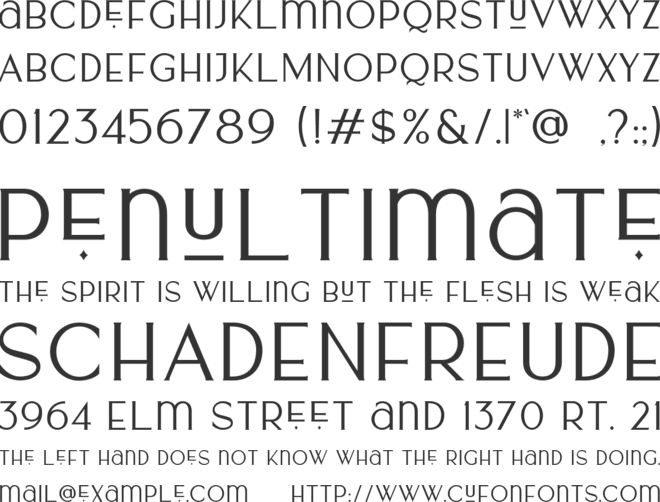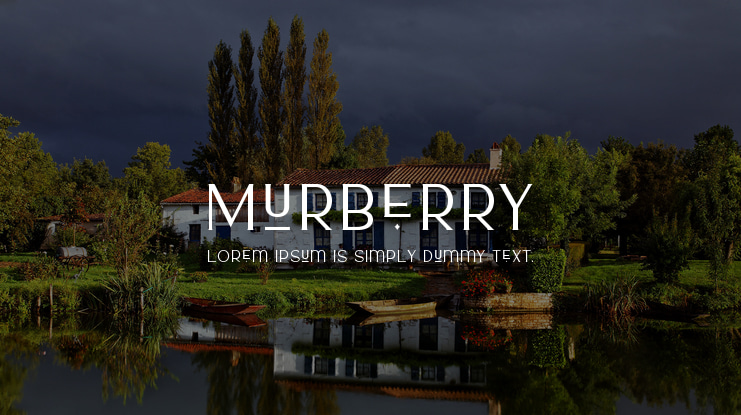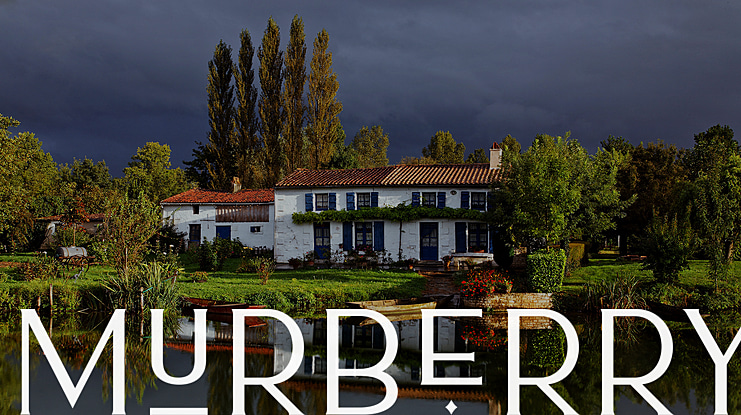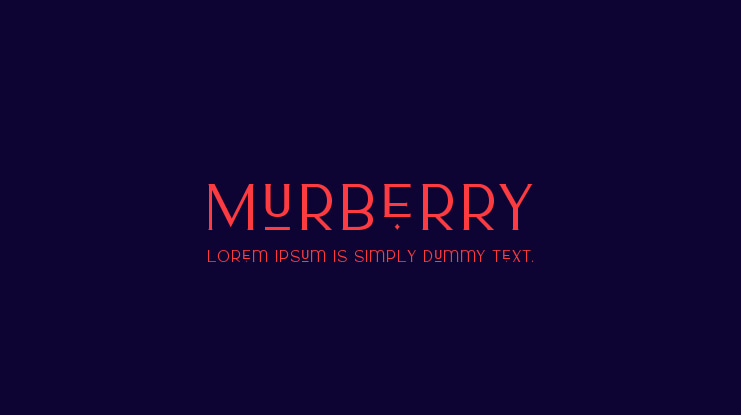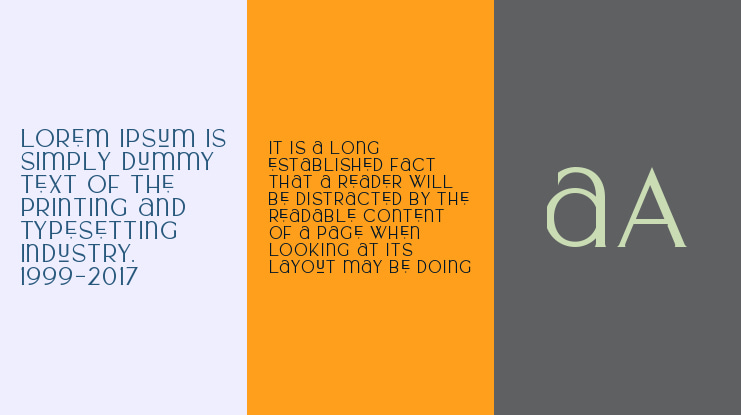
Murberry Font
Murberry - A Font by Aluyeah Studio
Bonjour! Murberry a fashion chic display font. This font was carefully crafted and inspired by one of leading fashion brand in the world. In general, it creates a luxurious and elegant look in design.
Full version coming to you with 50+ luxury ligature and 30+ alternate in 4 weight - light, normal, medium and bold - to create a perfectly beautiful, classy, chic, elegant, and luxurious design.